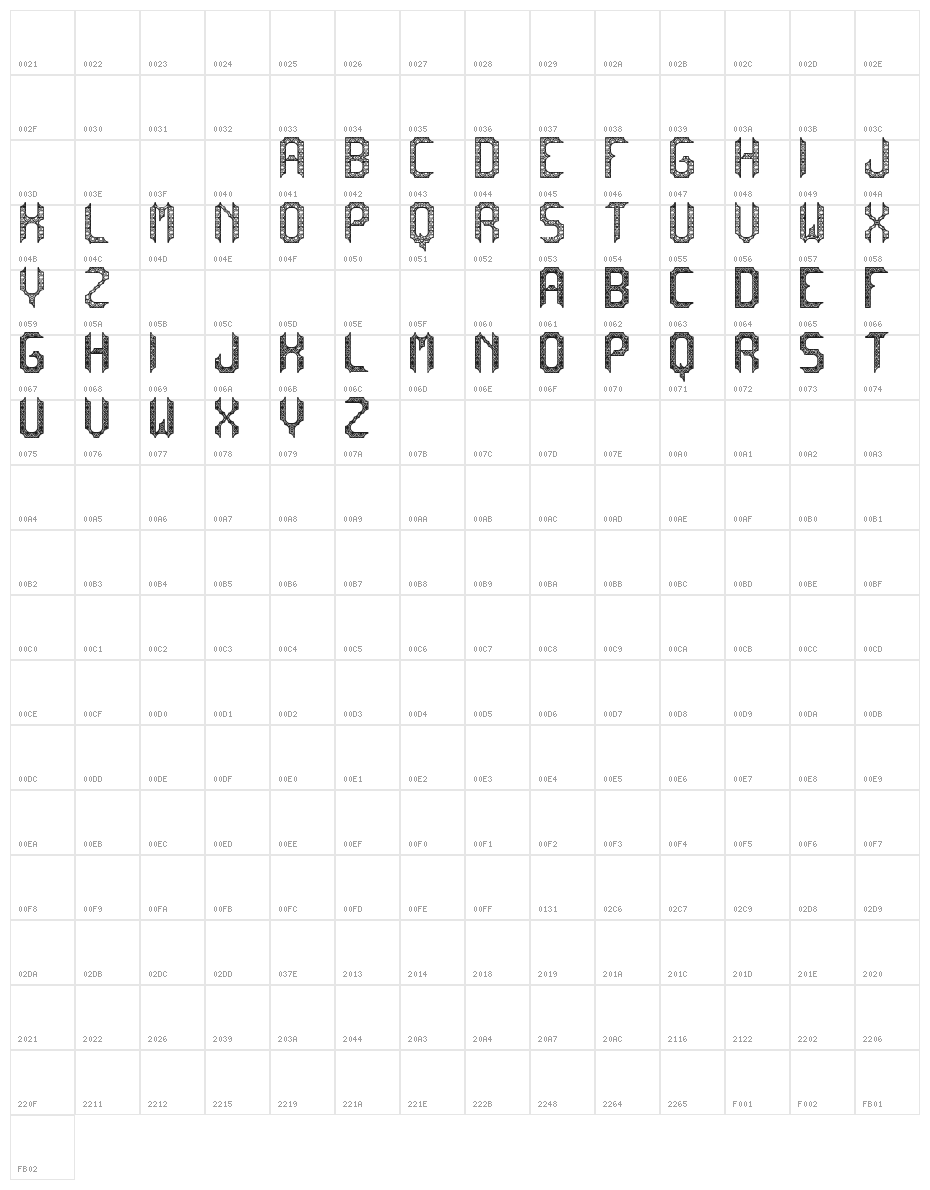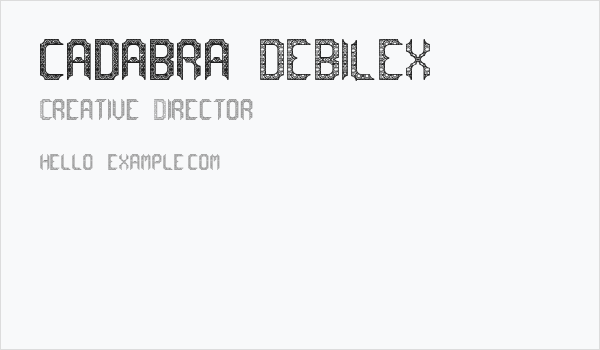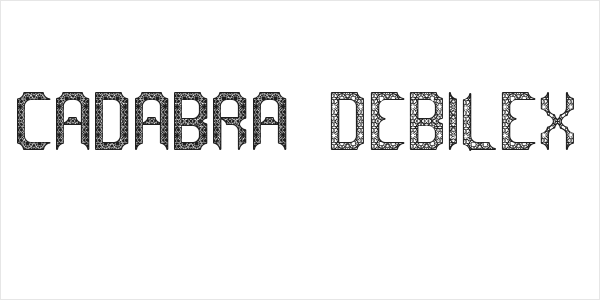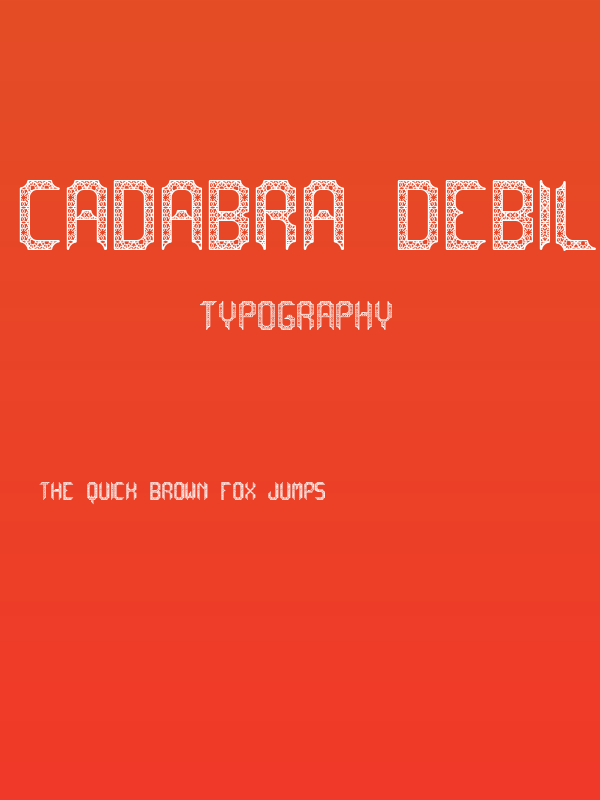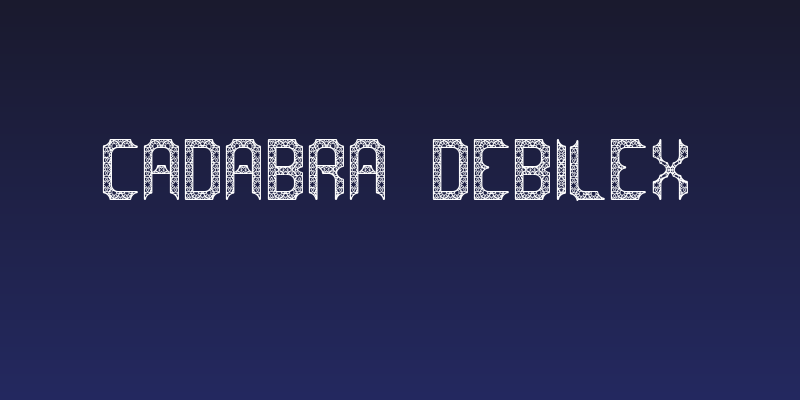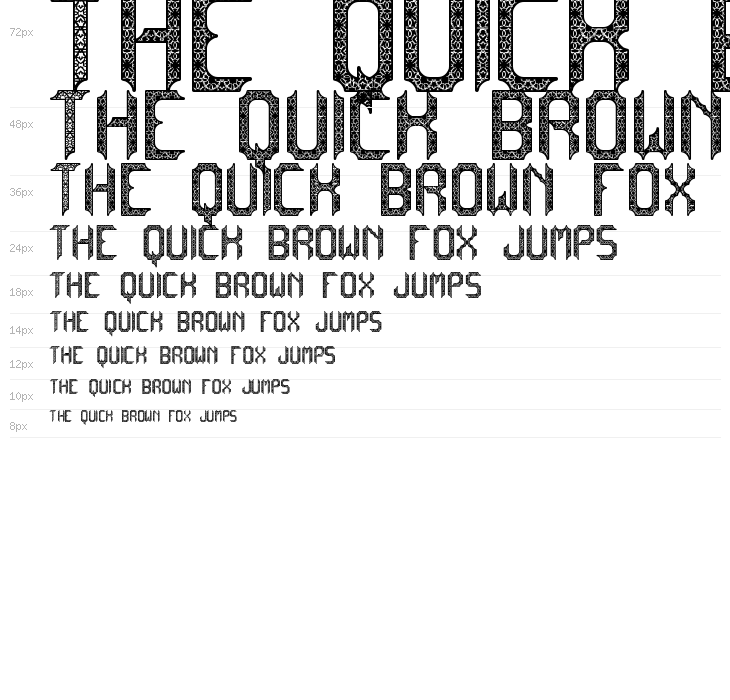
cadabra DEBILEX Font
cadabra DEBILEX Description
This font features a highly decorative and intricate design, characterized by its bold, geometric shapes filled with detailed patterns. Each letter is uniquely crafted with a consistent motif that resembles a lattice or mosaic, giving it a distinct and eye-catching appearance. The uppercase letters are particularly striking, with sharp angles and a strong presence, making them ideal for display purposes. The font's style is reminiscent of gothic or medieval influences, yet it maintains a modern edge through its structured and symmetrical form.
| Proposed Projects | Ideal for use in branding, posters, album covers, or any project requiring a bold and artistic statement. |